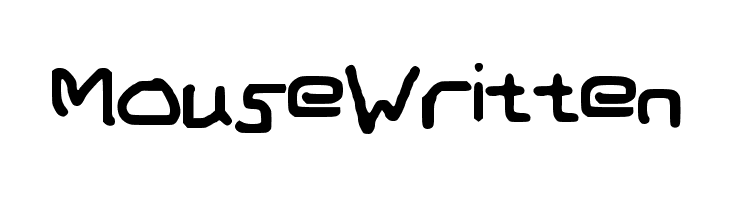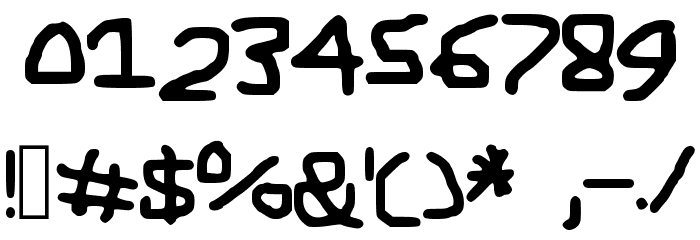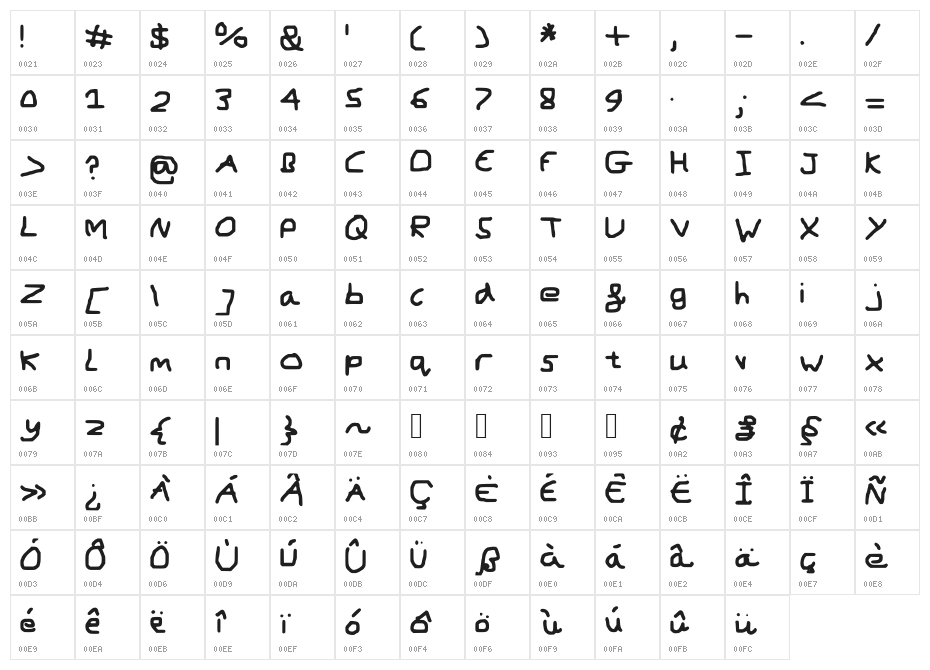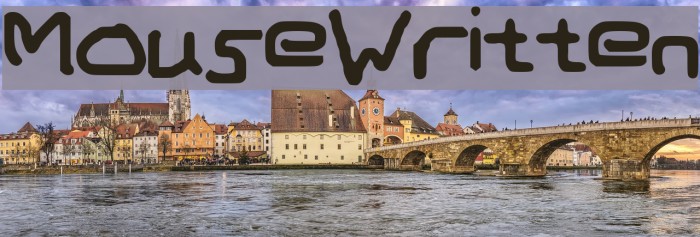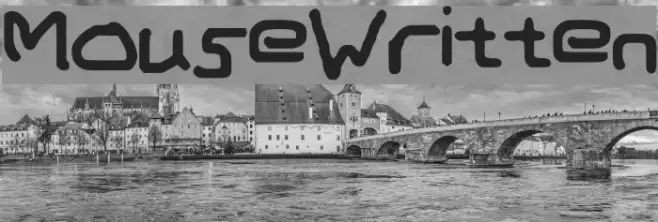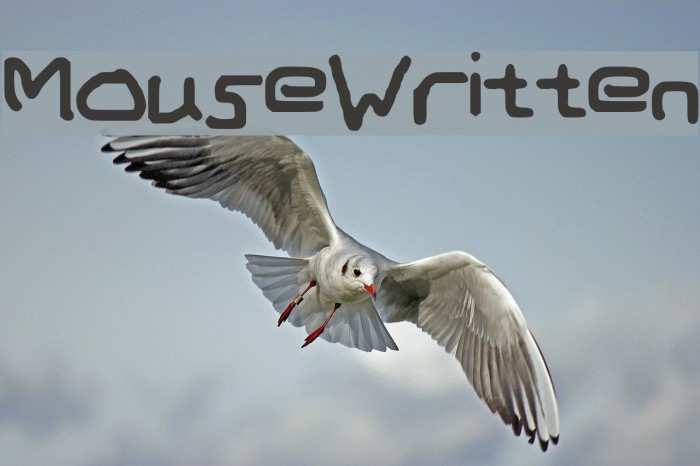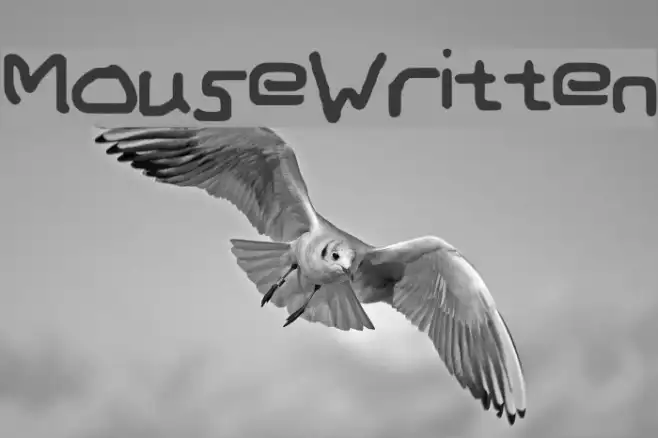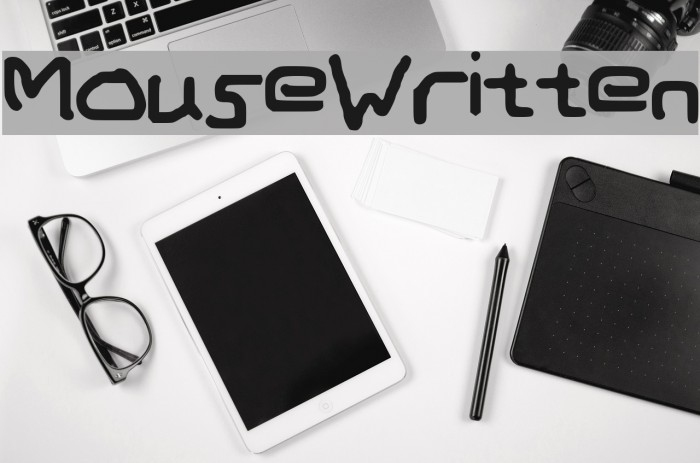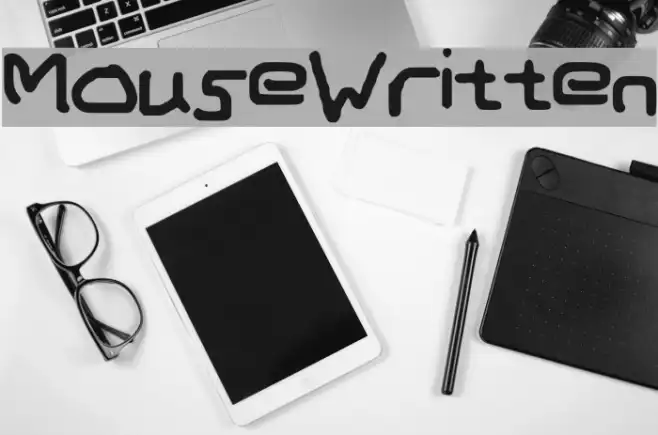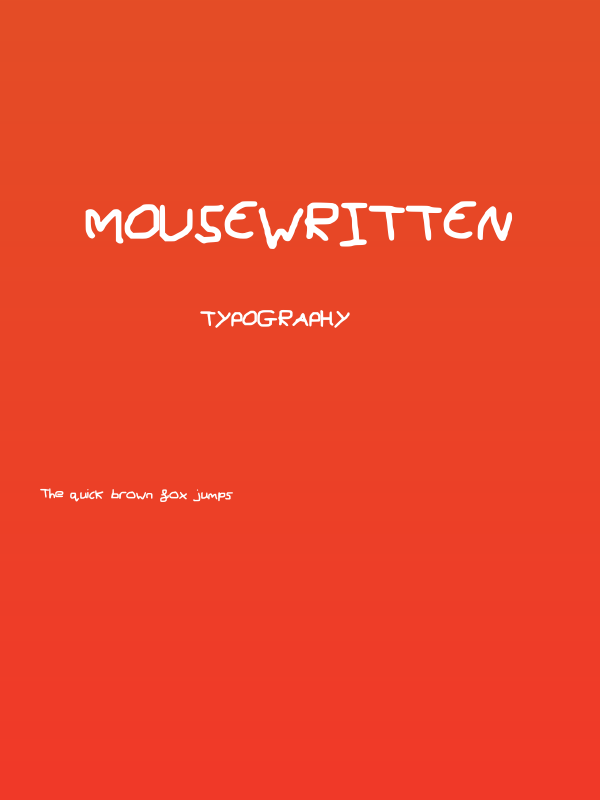
MouseWritten Font
MouseWritten Description
This font exudes a playful and informal handwritten style, reminiscent of casual doodles or notes jotted down quickly. The characters are bold and rounded, with a slightly uneven baseline that adds to its whimsical charm. Each letter has a unique, organic flow, giving the impression of being drawn with a thick marker or brush. The uppercase and lowercase letters maintain a consistent style, while the numbers and special characters integrate seamlessly, enhancing the font's cohesive appearance. Its distinct, hand-drawn aesthetic makes it stand out, perfect for projects that require a personal, approachable touch.
| Overall Style | Playful, Informal |
| Proposed Projects | Ideal for children's books, casual invitations, greeting cards, and playful branding projects. |